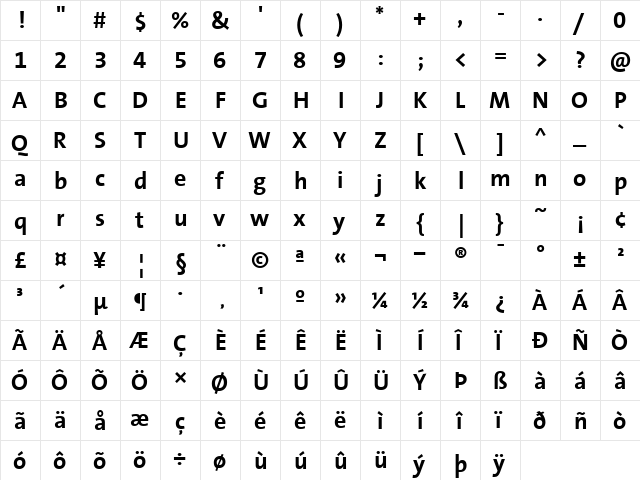
TheSans Bold Font Preview
TheSans Bold
TheSans Bold Font Details
Design Context for TheSans Typeface
TheSans is a composed and adaptable typeface that performs quietly and consistently across a wide range of design contexts. The heavy weight commands attention and anchors typographic hierarchies.